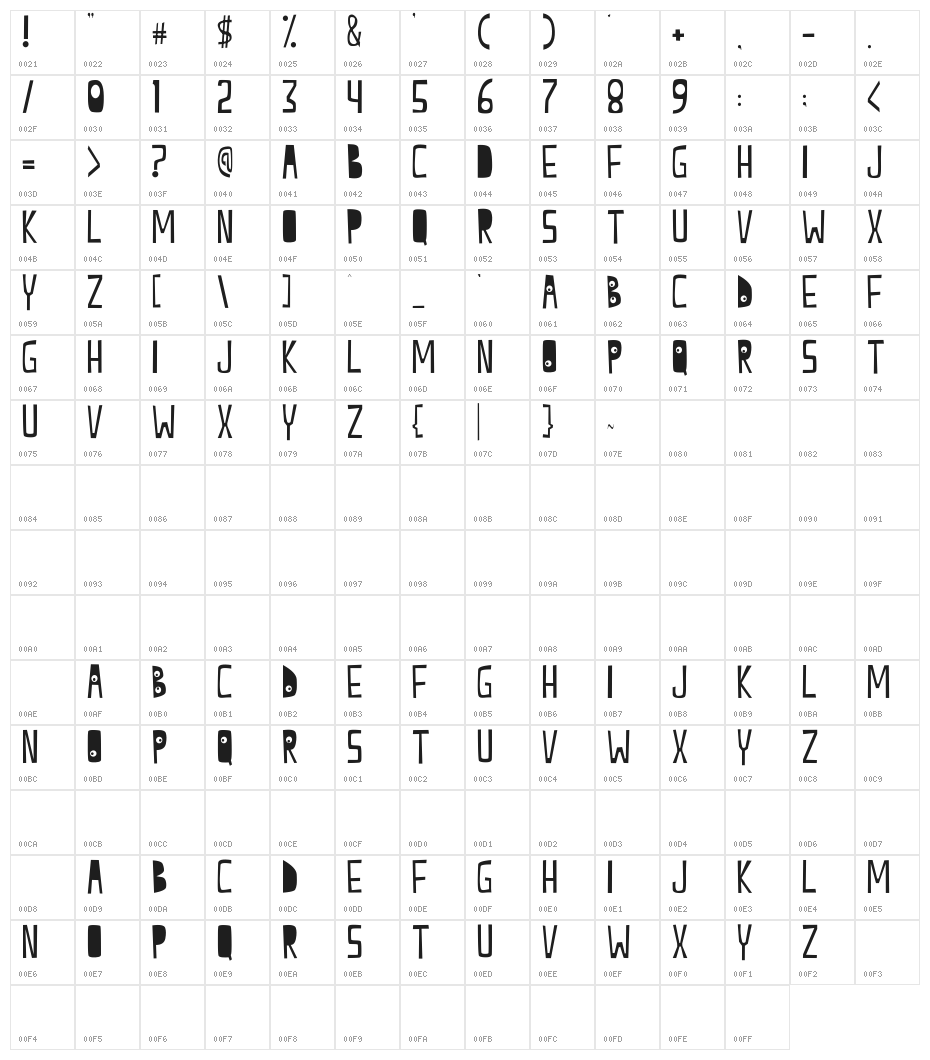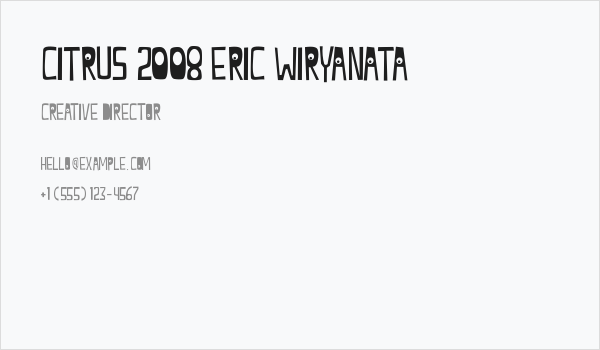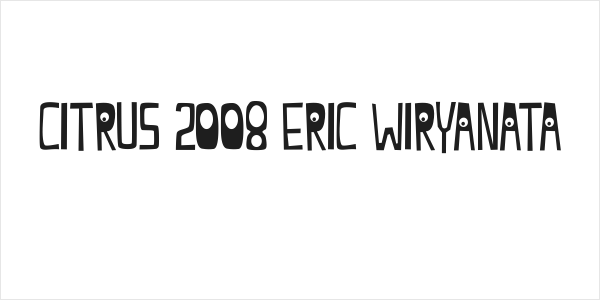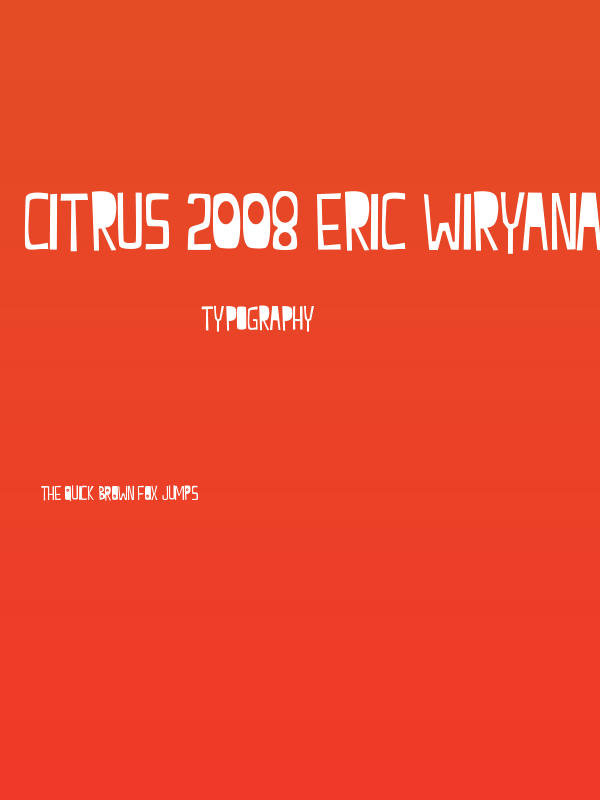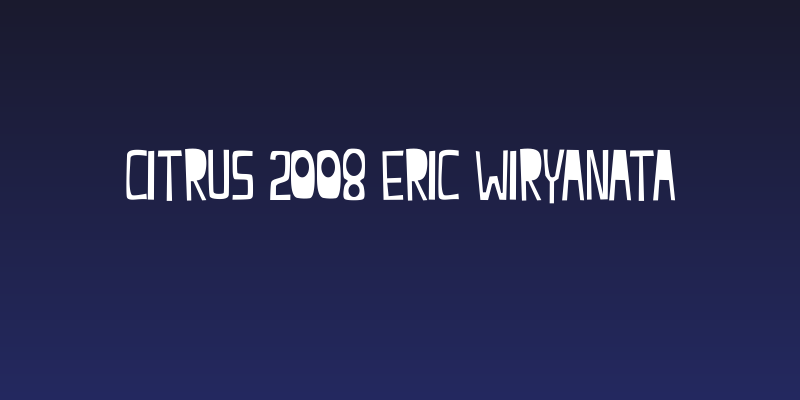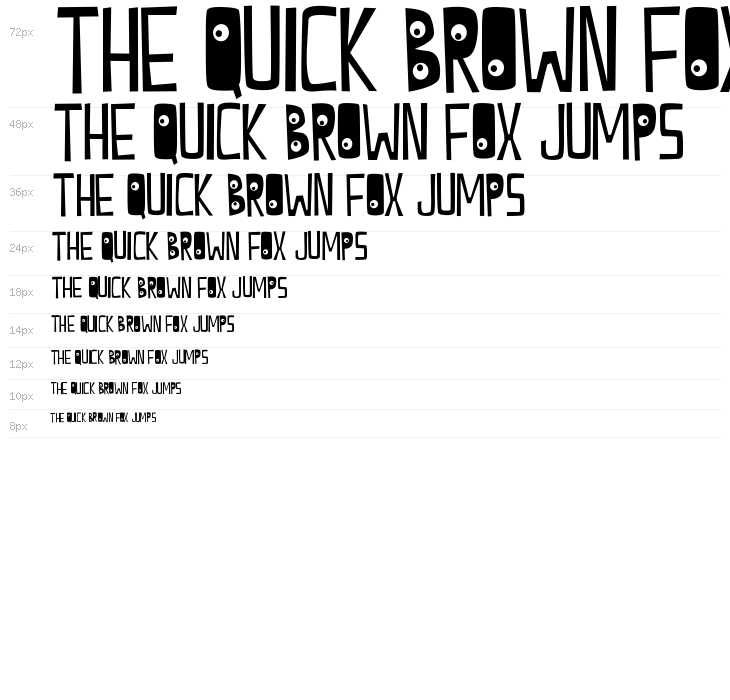
citrus 2008 eric wiryanata Font
citrus 2008 eric wiryanata Description
This font features a playful and whimsical design, characterized by its unique and quirky letterforms. Each character is crafted with a sense of fun, incorporating irregular shapes and unexpected curves that give it a lively and energetic appearance. The font maintains a consistent style across uppercase, lowercase, numbers, and special characters, ensuring a cohesive look. Its distinctiveness makes it stand out, capturing attention with its creative flair. The strokes are varied, with some letters having thicker lines, adding to the dynamic feel of the font. It's perfect for projects that require a touch of creativity and individuality.
| Proposed Projects | Ideal for children's books, creative posters, playful branding, and artistic invitations. |